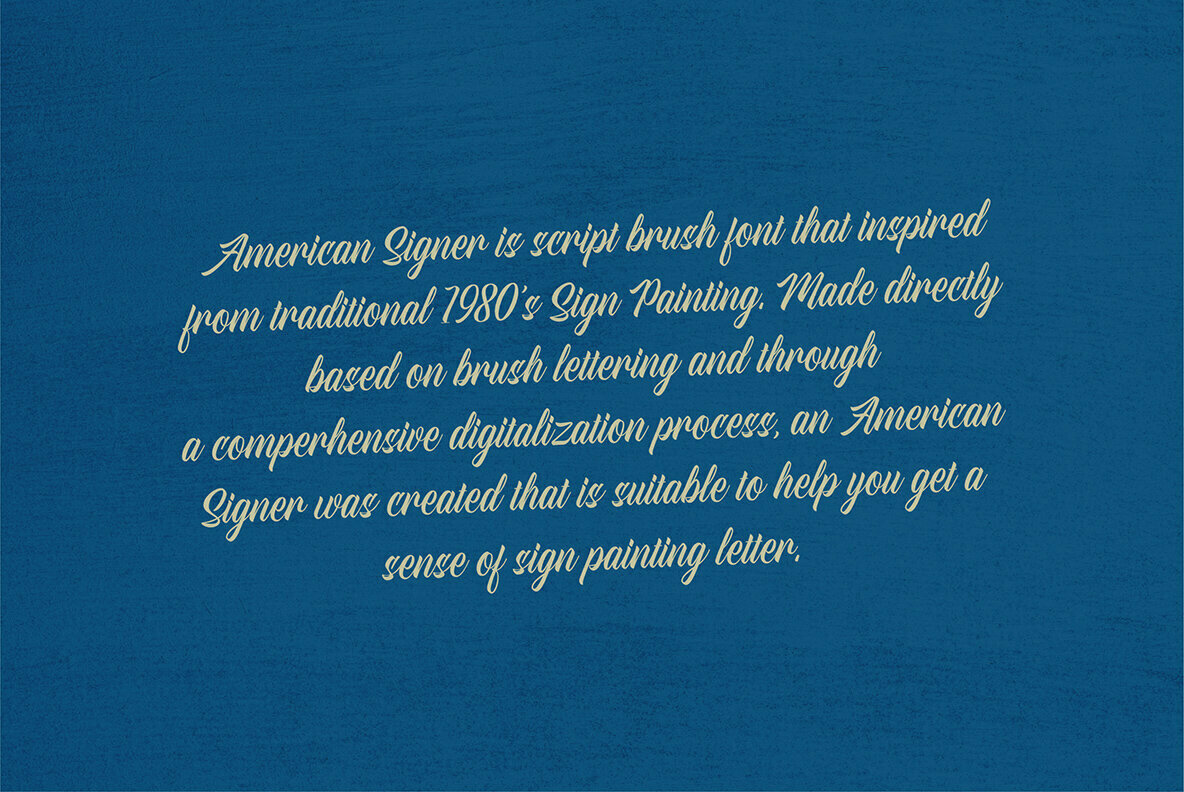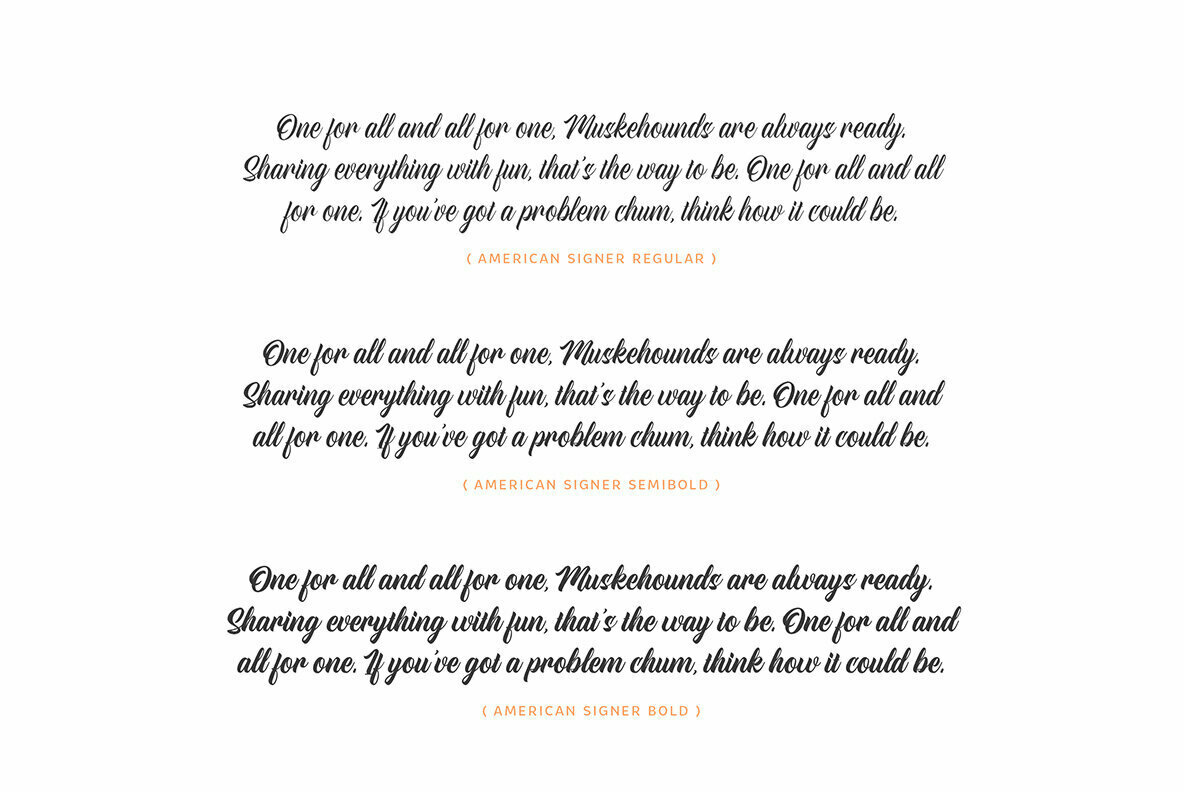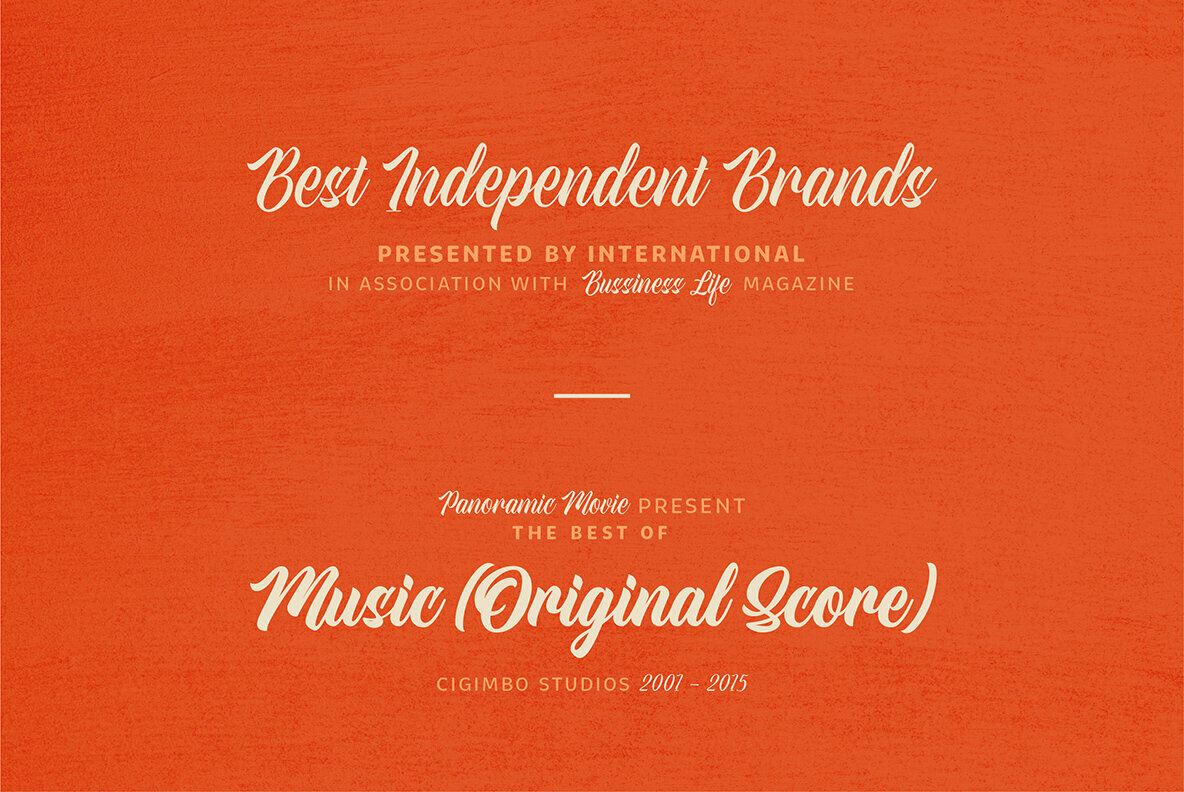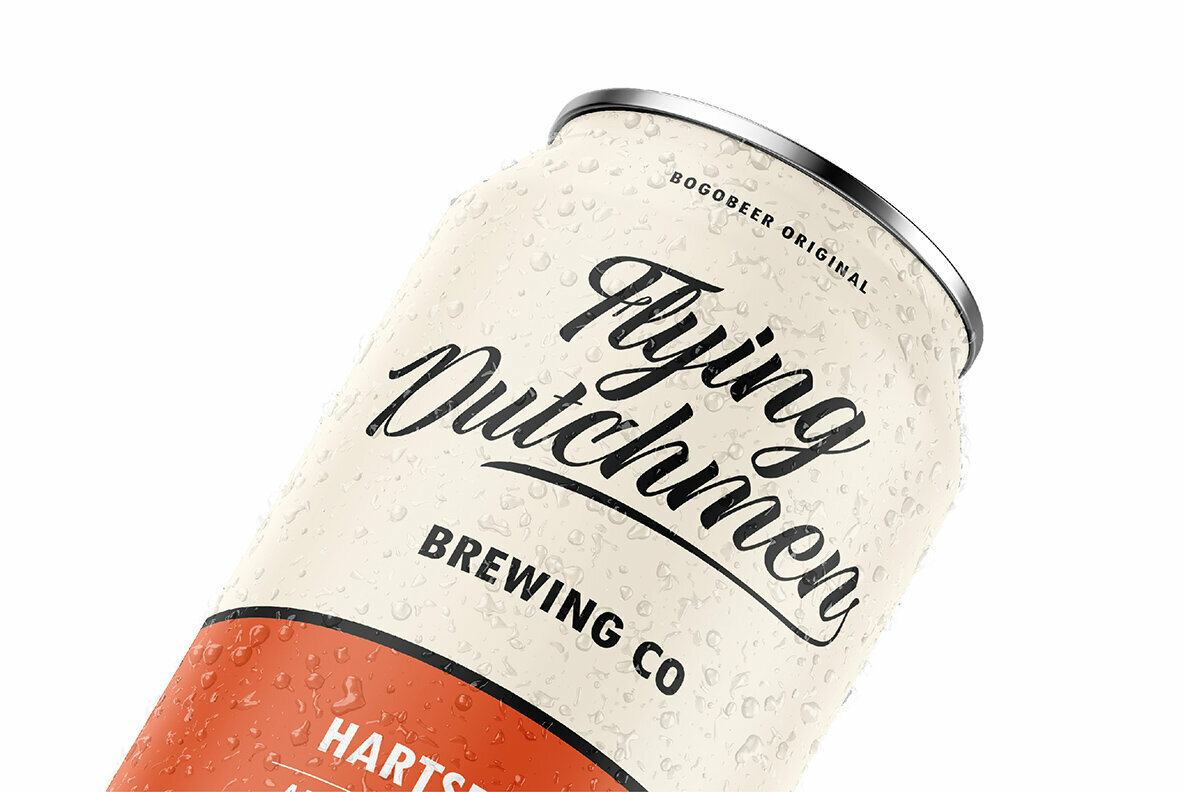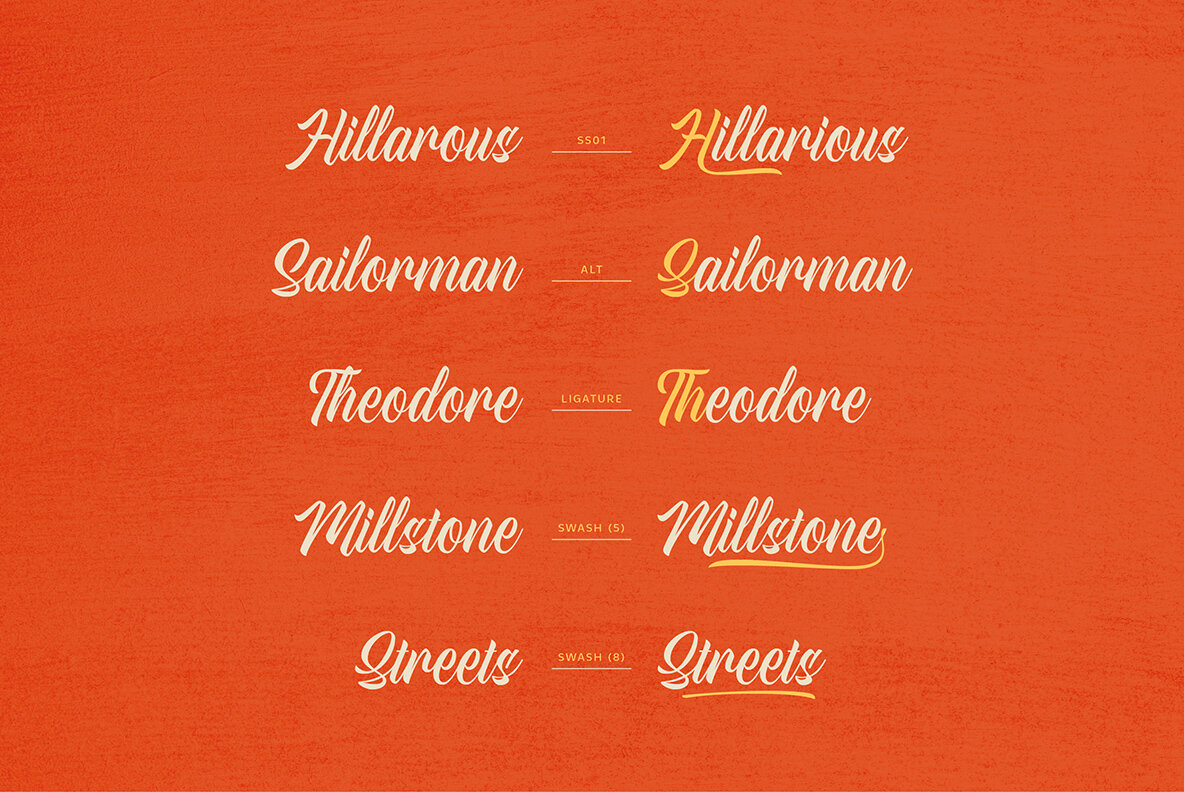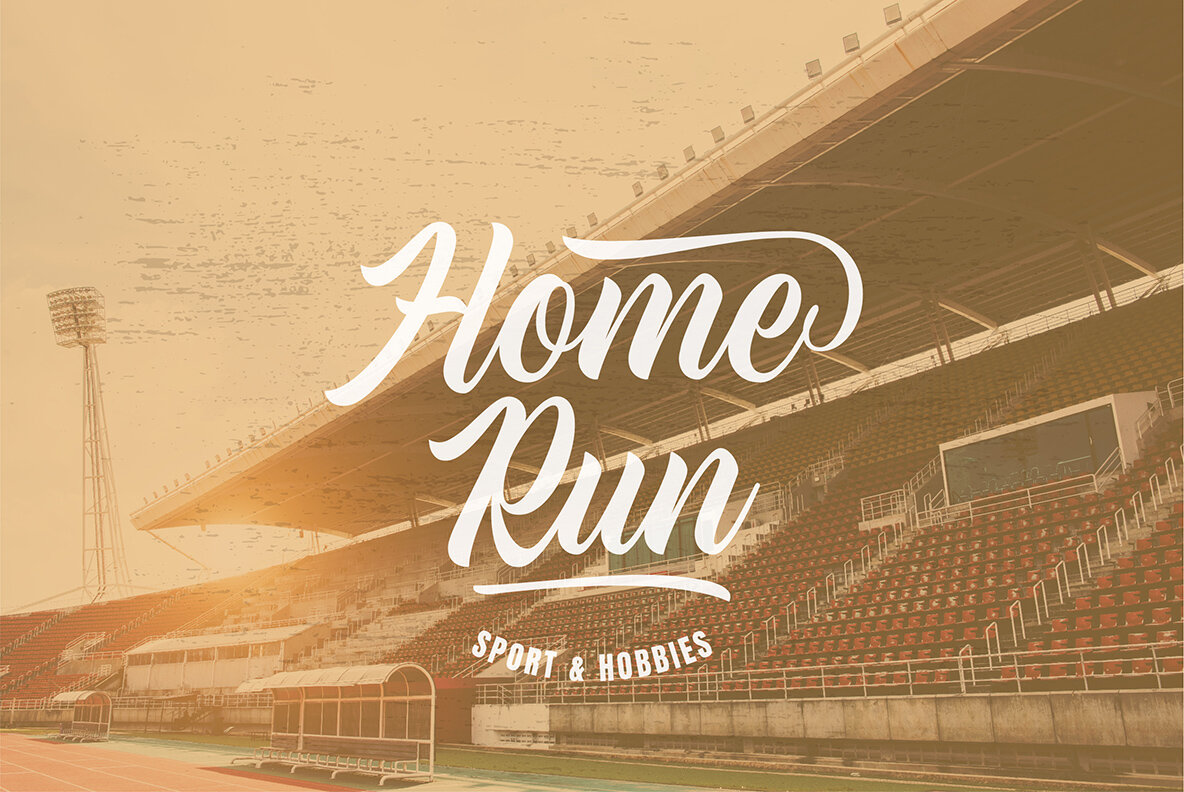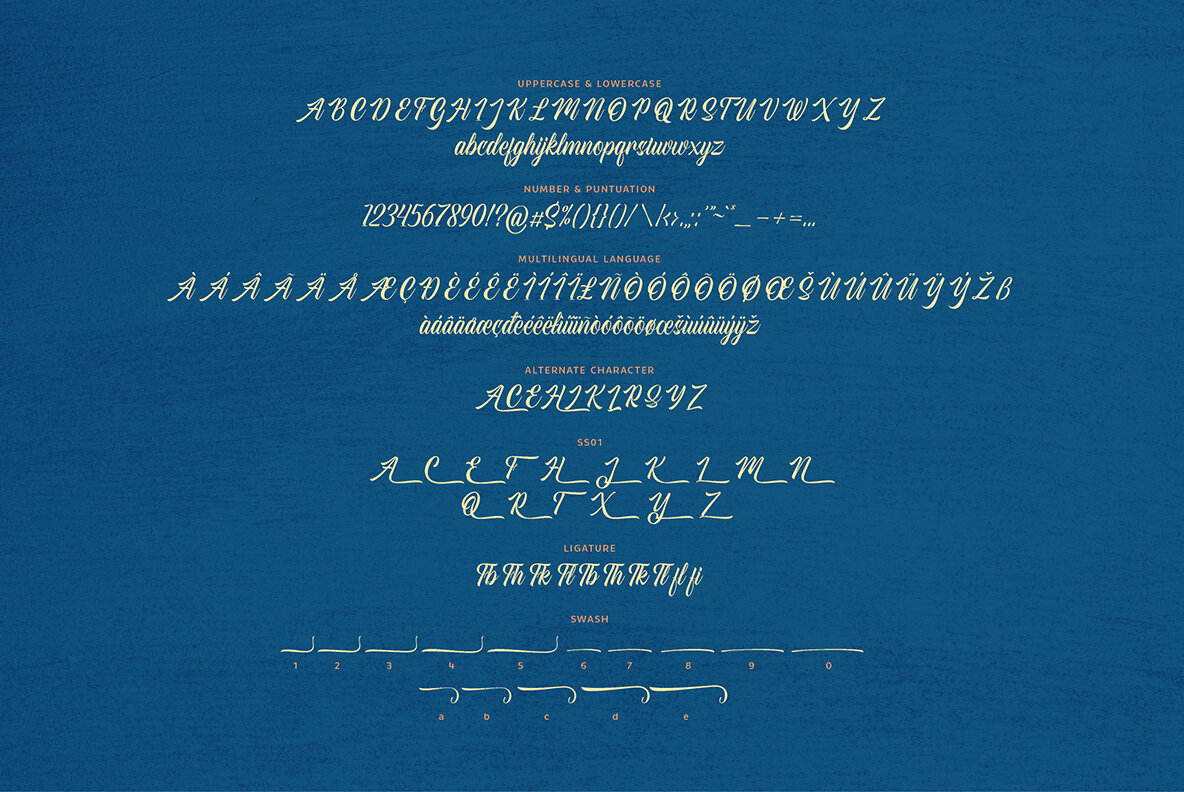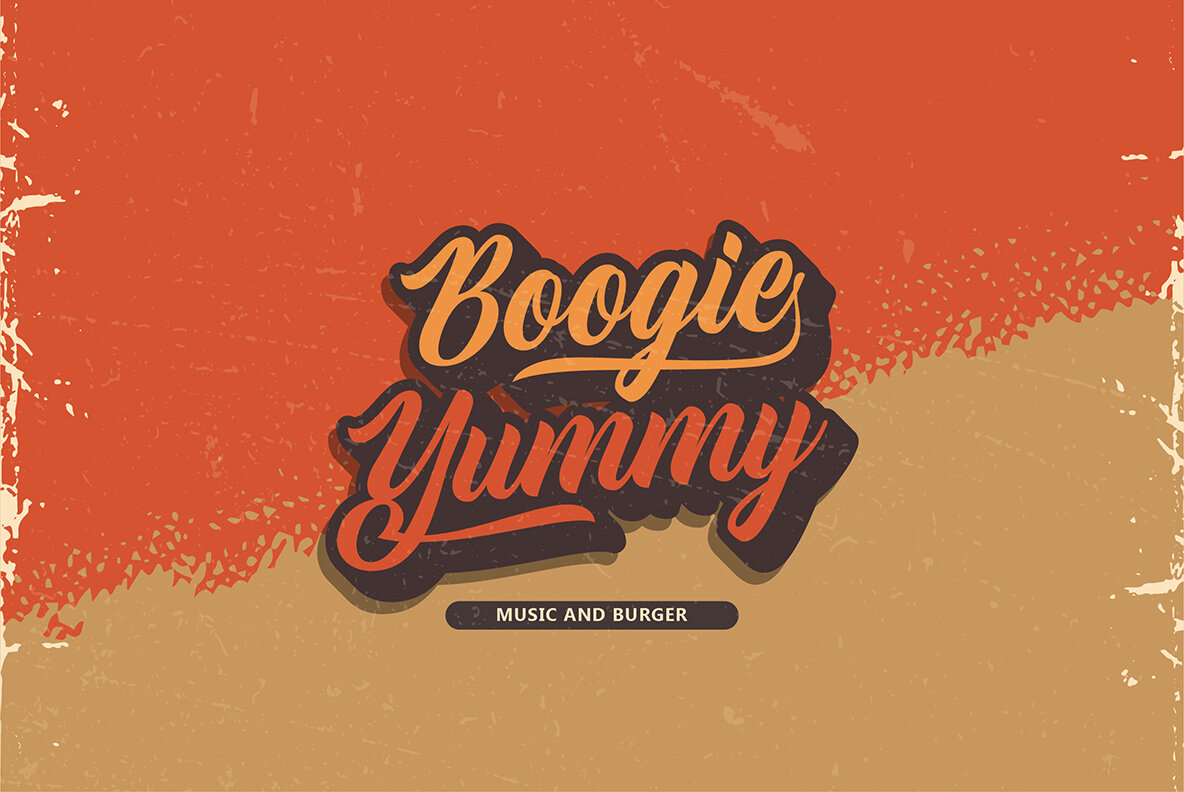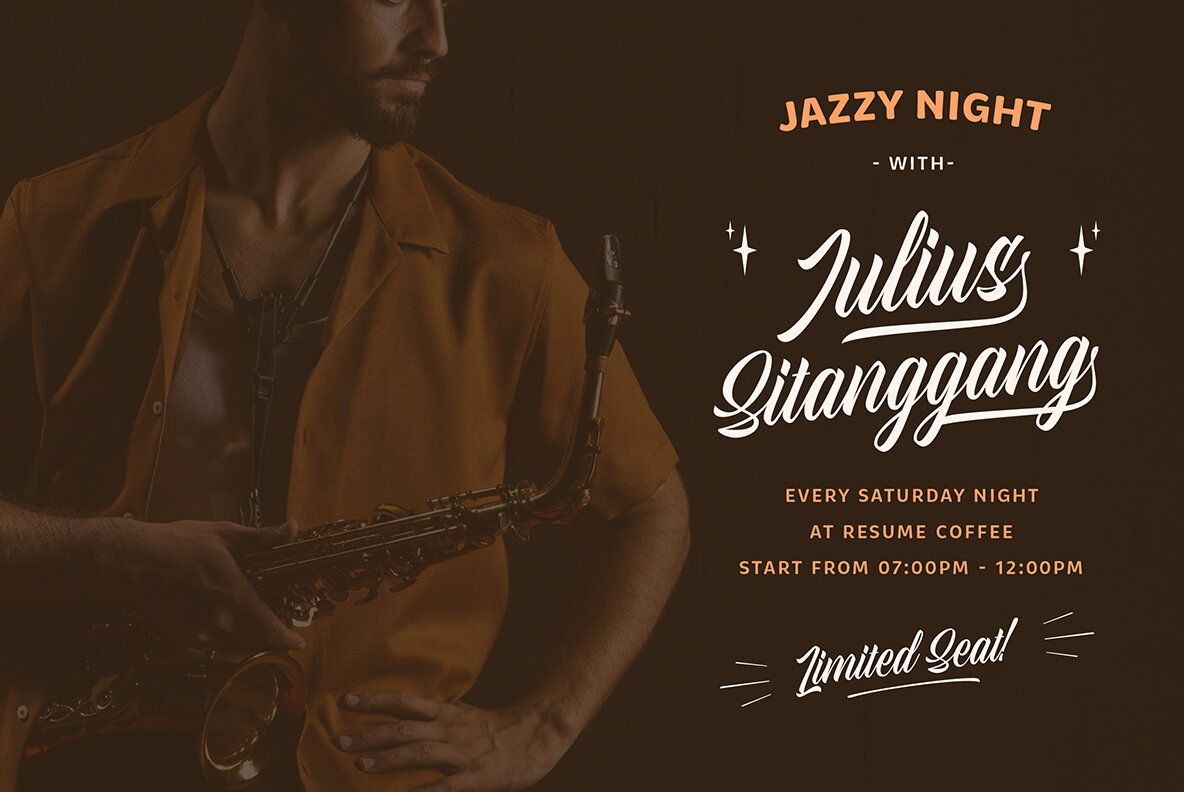
American Signer Font
American Signer Regular
American Signer Semi Bold
American Signer Bold
Inspired by the classic elegance of 1980s sign painting, American Signer captures the essence of traditional brush lettering through an attentive digitization process. This script brush font evokes the charm and craftsmanship of vintage signage, making it an ideal choice for creatives looking to evoke a nostalgic aesthetic in their projects. American Signer fits seamlessly into a variety of design contexts, from logos and badges to labels and packaging. It serves as a powerful tool to recreate the timeless allure of handcrafted sign painting, enriching vintage-inspired projects with its bold and intricate strokes.American Signer: Embrace the Art of Vintage Sign Painting